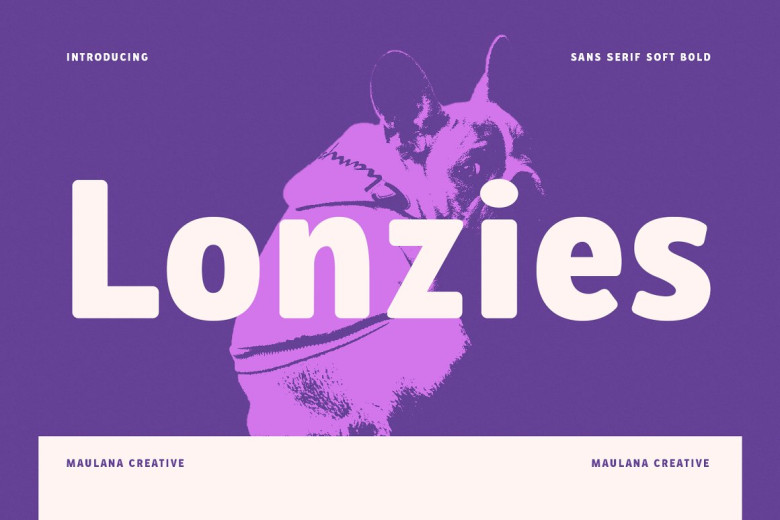
Lonzies Font
Lonzies is a simply semi-geometric sans serif font. give you extra creative work. this font good with logo design, Social media, Movie Titles, Books Titles, a short text even a long text letter and good for your secondary text font with sans or serif. Make a stunning work with Lonzie’s font.
Lonzies Display Sans Serif Font